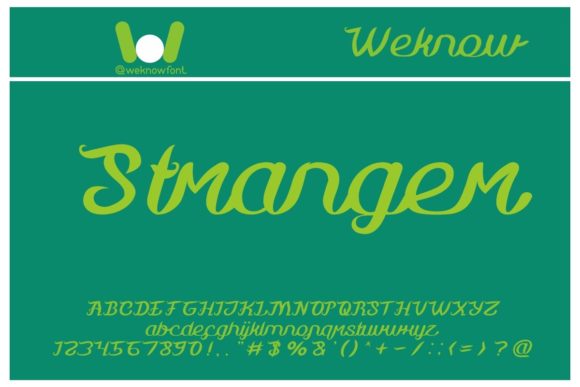
About Stranger Font
Stranger is a script font, suited for logos, logotypes, and headlines. It can be used in corporate and brand identity, the apparel industry, posters, music, movies, games, magazines, books, comics, cartoons, YouTube, Instagram, websites, or in any of your creative design projects.